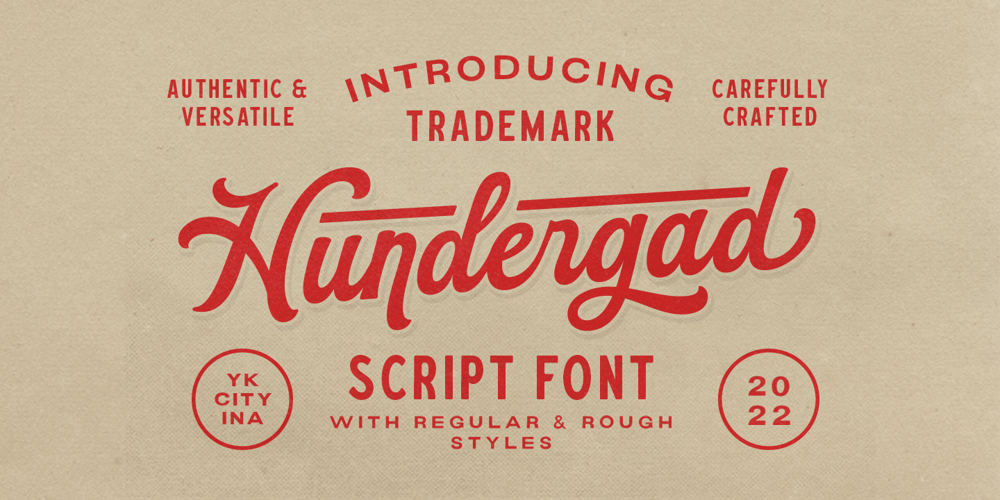
Hundergad
Hundergad font
Hundergad Font Family was designed by Hendry Juanda and published by Letterhend. Hundergad contains 2 styles and family package options. Hundergad is a script with vintage look and feel. This font perfectly made to be applied especially in logo, and the other various formal forms such as invitations, labels, logos, magazines, books, greeting / wedding cards, packaging, fashion, make up, stationery, novels, labels or any type of advertising purpose.Features : regular & rough uppercase & lowercase numbers and punctuation multilingual ligatures alternates swashes PUA encoded We highly recommend using a program that supports OpenType features and Glyphs panels like many of Adobe apps and Corel Draw, so you can see and access all Glyph variations.